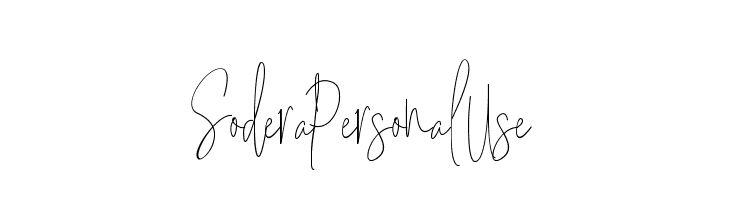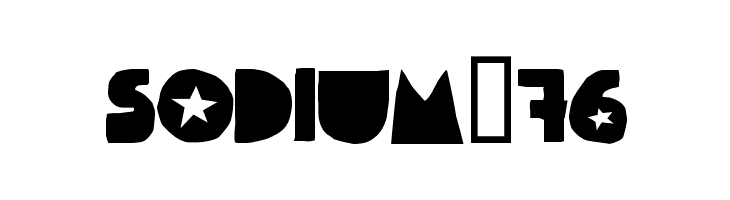
A bold, geometric font with angular shapes and decorative star motifs.
A bold, flowing script font with elegant curves and interconnected letters.
A bold, modern sans-serif font with geometric precision.
A modern, bold italic font with sharp angles and a sleek, condensed style.
A modern, italic font with bold strokes and a dynamic slant.
A bold, modern font with geometric lines and a strong presence.
A bold, geometric font with an industrial and modern aesthetic.
A bold, playful font with rounded edges and thick strokes, perfect for creative projects.
An elegant, flowing script font with a handwritten style.